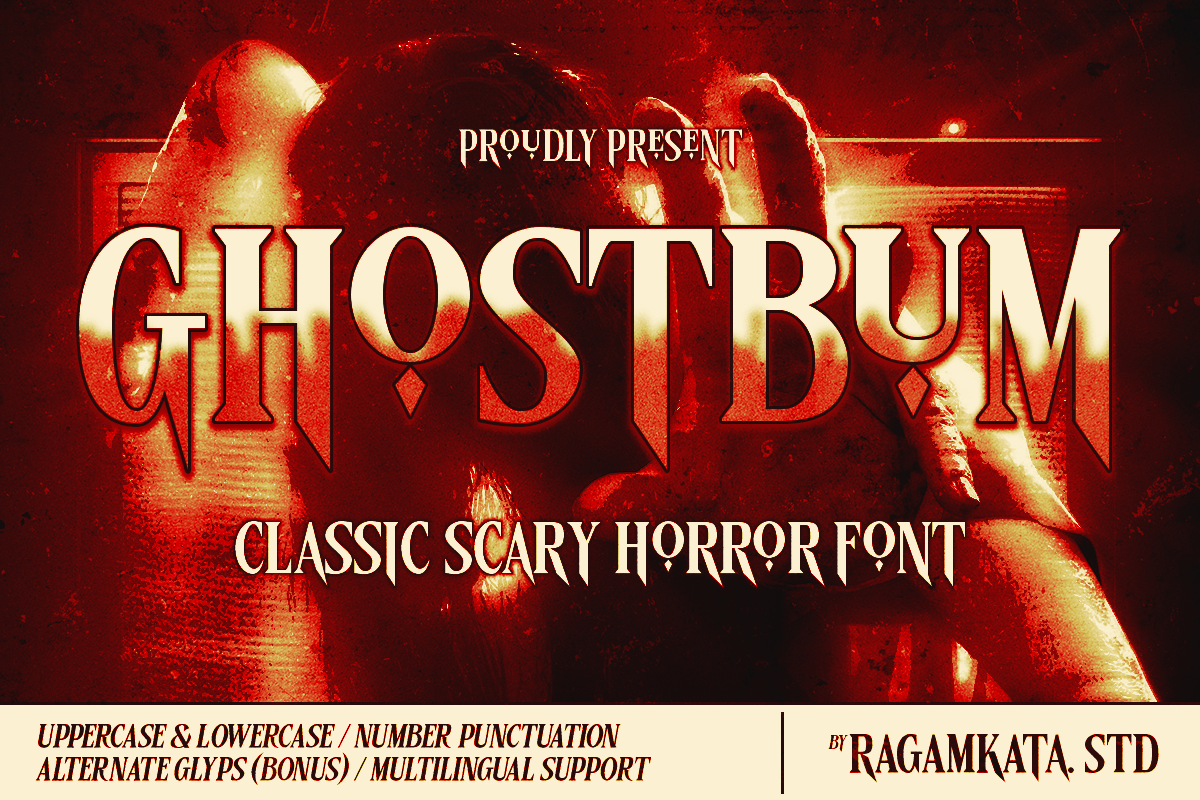
Ghostbum Font Free Download is a spooky and chilling horror typeface designed to send shivers down your spine. With its jagged edges, eerie curves, and haunted vibe, this font is perfect for Halloween posters, horror movie titles, scary storybooks, creepy merch, and ghostly social media graphics.
It captures the essence of classic horror with a playful twist—making it ideal for both terrifying and fun designs. Whether you're crafting spine-tingling content or a frightfully cute project, Ghostbum adds the perfect dose of fear and flair. Ghostbum Font Free Download allows you to test its haunted charm in personal projects before purchasing a commercial license.
Summon the spirit of spooky design with Ghostbum — the horror font that screams personality and scares in style.